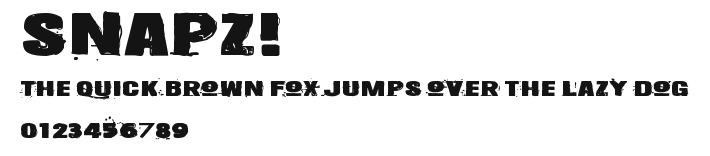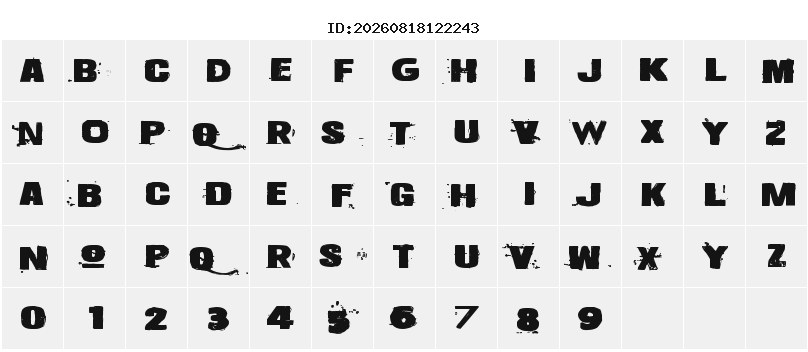
• Font Name: Snapz!
• Full Font Name: Snapz!
• Version: Version 1.00 March 20, 2014, initial release
About Snapz!.ttf
Snapz!.ttf is a modern, elegant sans-serif font designed for ultimate readability and visual harmony. Perfect for branding, headlines, web design, and print materials.